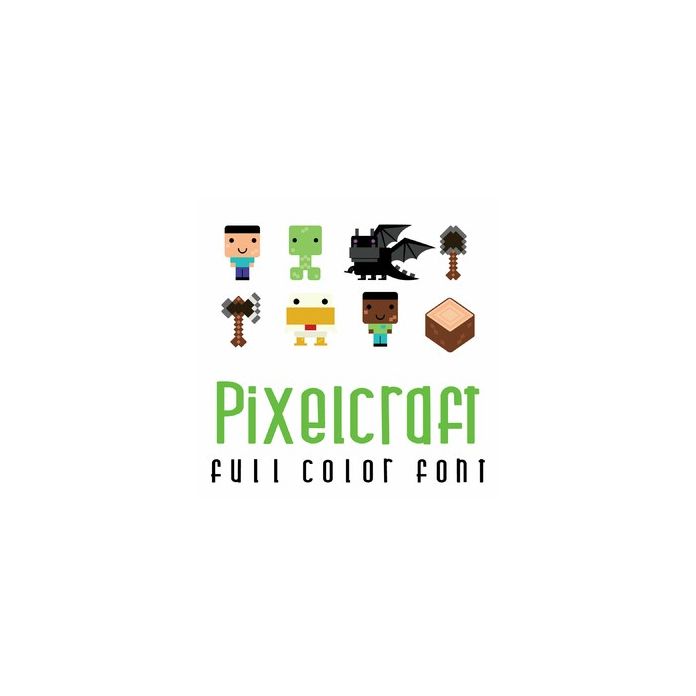
This adorable full-color doodlebat font features 26 fun pixel style characters and imagery. Perfect for cards, crafts, gifts, decor, scrapbook pages, planner stickers, and more!